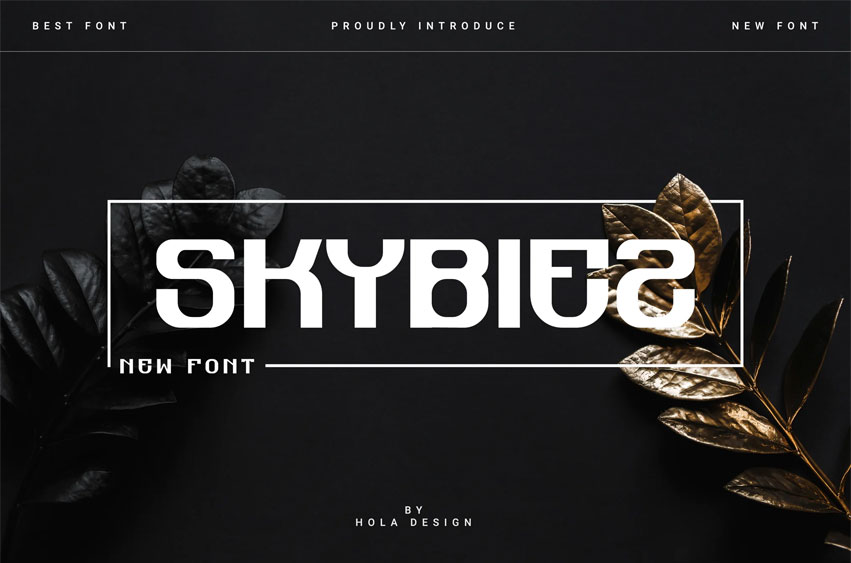
Skybiez Font
Skybiez Font is unique. Ready to use for your design like labeling, movie sceen, poster, movie title, gigs, album covers, logos, and much more.